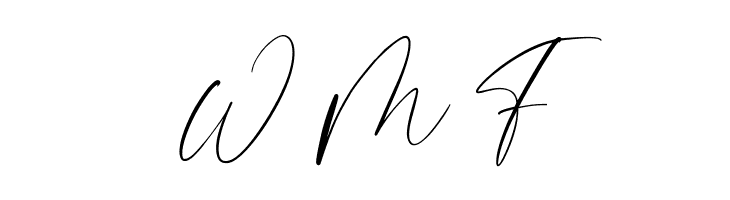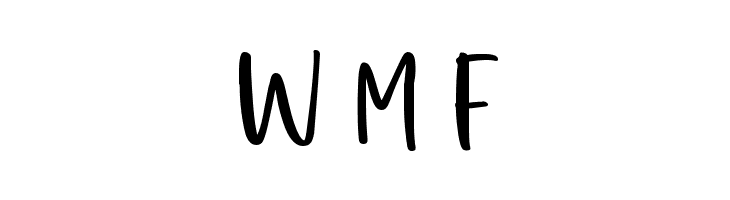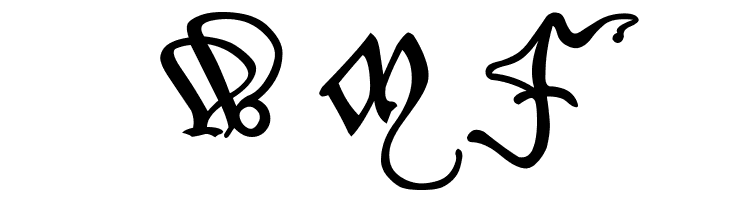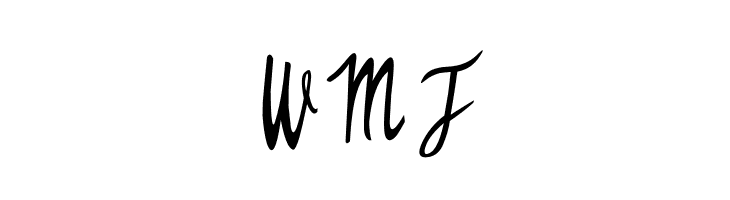
A bold, decorative font with snowflake patterns for a festive winter theme.
A playful, icy-themed font with a dripping icicle effect.
( Nevan Orr )
A playful and whimsical font with bold, dynamic characters and a unique style.
A playful, casual handwritten font with smooth, flowing lines.
( Fonts by Brittney Murphy Design )
A playful, winter-themed decorative font with snowflakes and stars.
( Fonts by hamizantype )
A playful, looped font with a hand-drawn, wire-like appearance.
( Fonts by www.pia-frauss.de )
An ornate, medieval-inspired calligraphic font with elaborate curves and flourishes.
A graceful, cursive script font with elegant loops and swashes.